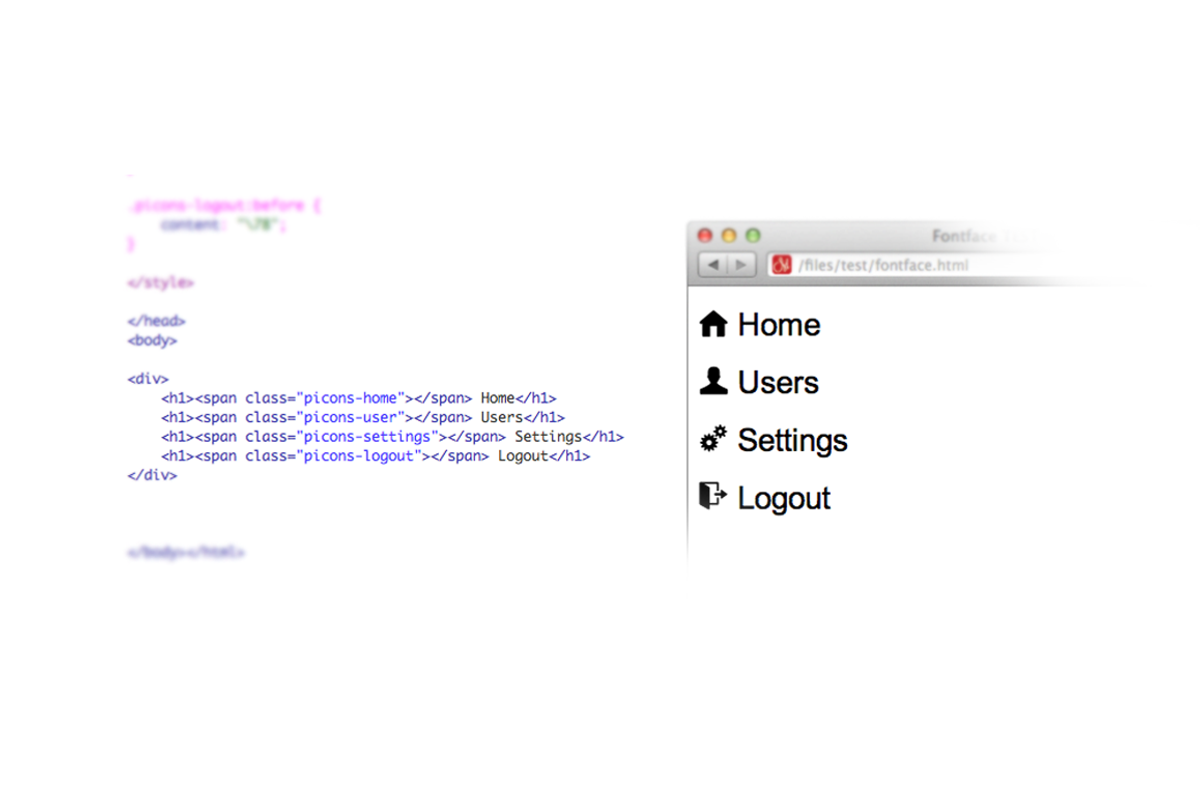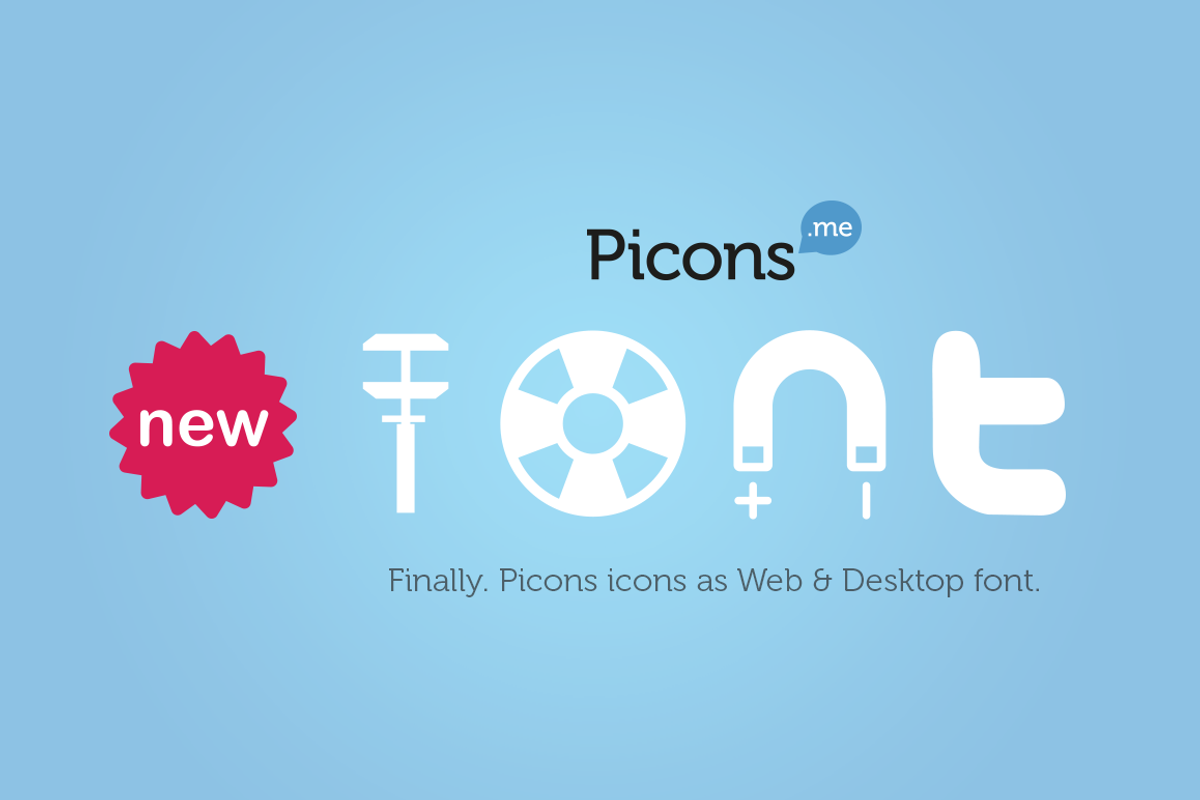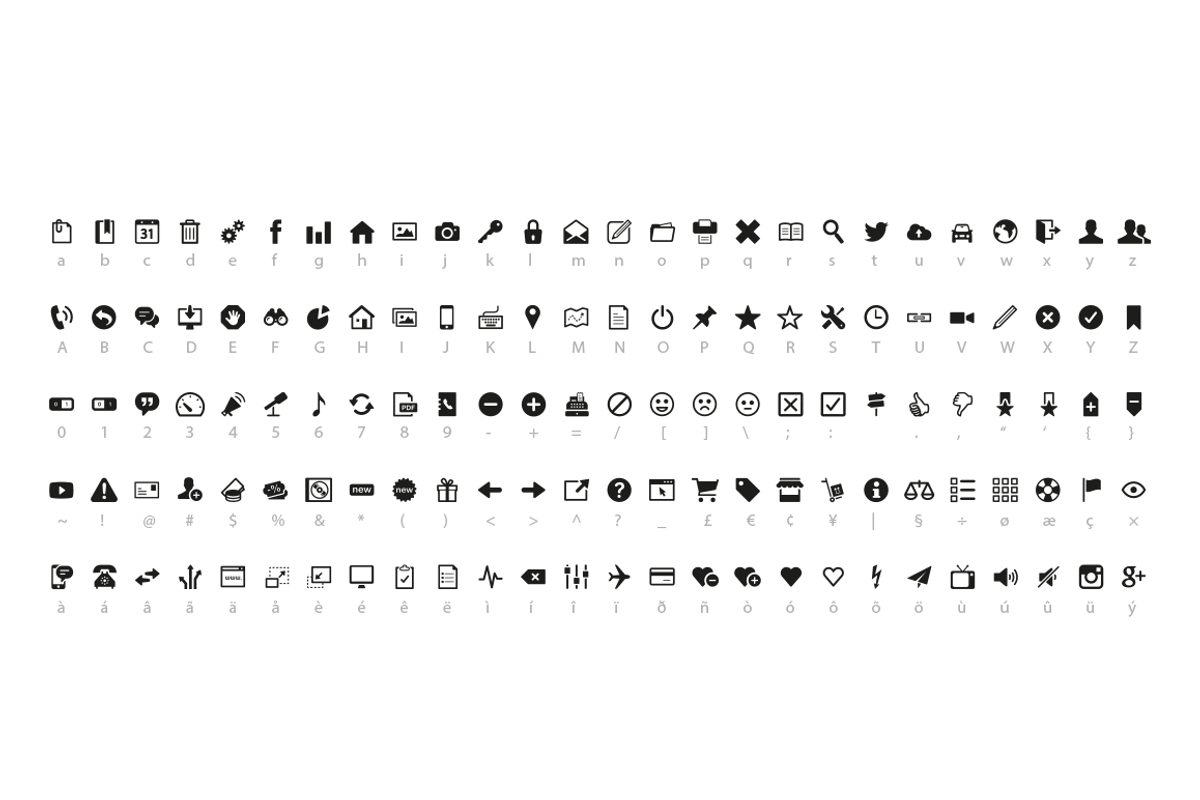
Picons Font
Picons Font by Picons.me is a font selected for branding, posters, packaging, typography.
Why Picons Font is worth a look
Picons Font by Picons.me fits naturally into Branding, posters, packaging, typography.